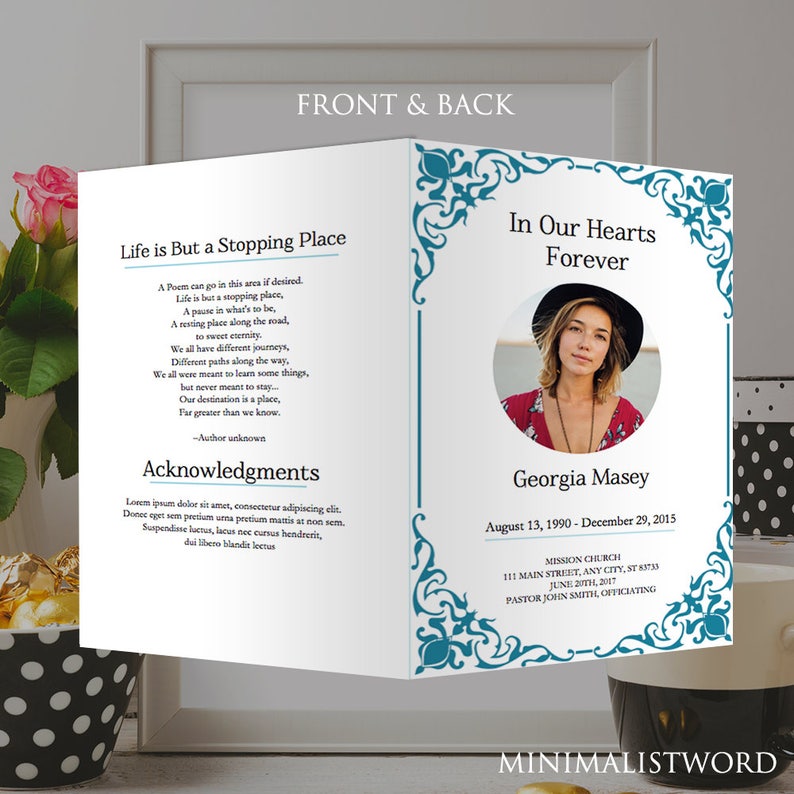
What Is The Best Font For A Funeral Program . When choosing a font for a funeral program, consider the following tips to ensure you make the right choice: The right font can convey the appropriate tone, honor the departed, and provide comfort to grieving loved ones. Choose a font that is easy to read, especially at. Popular fonts for funeral programs. Serif fonts like times new roman are commonly used for their traditional and formal. This comprehensive guide will help you navigate the nuanced. Whether you’re creating a funeral program or finalizing text for an obituary, this feature will have all the best fonts in the. When creating a funeral program, selecting the appropriate fonts plays a crucial role in conveying the desired tone and honoring the individual being commemorated. Several fonts are commonly used in funeral programs due to their readability and ability to convey a sense of reverence. The choice of fonts in a funeral program influences readability and sets the tone. A classic serif font that is elegant and easy to read, making it suitable for longer passages of text.
Serif fonts like times new roman are commonly used for their traditional and formal. Several fonts are commonly used in funeral programs due to their readability and ability to convey a sense of reverence. The choice of fonts in a funeral program influences readability and sets the tone. Popular fonts for funeral programs. The right font can convey the appropriate tone, honor the departed, and provide comfort to grieving loved ones. When creating a funeral program, selecting the appropriate fonts plays a crucial role in conveying the desired tone and honoring the individual being commemorated. Choose a font that is easy to read, especially at. Whether you’re creating a funeral program or finalizing text for an obituary, this feature will have all the best fonts in the. This comprehensive guide will help you navigate the nuanced. A classic serif font that is elegant and easy to read, making it suitable for longer passages of text.
What Is The Best Font For A Funeral Program When choosing a font for a funeral program, consider the following tips to ensure you make the right choice: The choice of fonts in a funeral program influences readability and sets the tone. Choose a font that is easy to read, especially at. Whether you’re creating a funeral program or finalizing text for an obituary, this feature will have all the best fonts in the. Popular fonts for funeral programs. This comprehensive guide will help you navigate the nuanced. When creating a funeral program, selecting the appropriate fonts plays a crucial role in conveying the desired tone and honoring the individual being commemorated. Several fonts are commonly used in funeral programs due to their readability and ability to convey a sense of reverence. A classic serif font that is elegant and easy to read, making it suitable for longer passages of text. Serif fonts like times new roman are commonly used for their traditional and formal. The right font can convey the appropriate tone, honor the departed, and provide comfort to grieving loved ones. When choosing a font for a funeral program, consider the following tips to ensure you make the right choice:
How To Write A Funeral Order Of Service What Is The Best Font For A Funeral Program The choice of fonts in a funeral program influences readability and sets the tone. Serif fonts like times new roman are commonly used for their traditional and formal. When choosing a font for a funeral program, consider the following tips to ensure you make the right choice: Whether you’re creating a funeral program or finalizing text for an obituary, this. What Is The Best Font For A Funeral Program.
Funeral Program Template Funeral Card, Memorial Program, Funeral What Is The Best Font For A Funeral Program Several fonts are commonly used in funeral programs due to their readability and ability to convey a sense of reverence. The choice of fonts in a funeral program influences readability and sets the tone. Popular fonts for funeral programs. This comprehensive guide will help you navigate the nuanced. When choosing a font for a funeral program, consider the following tips. What Is The Best Font For A Funeral Program.
How to Write a Funeral Order of Service instantprint in 2022 What Is The Best Font For A Funeral Program Choose a font that is easy to read, especially at. The choice of fonts in a funeral program influences readability and sets the tone. Several fonts are commonly used in funeral programs due to their readability and ability to convey a sense of reverence. A classic serif font that is elegant and easy to read, making it suitable for longer. What Is The Best Font For A Funeral Program.
Gold Funeral Program Template for Man, Masculine Memorial Program What Is The Best Font For A Funeral Program A classic serif font that is elegant and easy to read, making it suitable for longer passages of text. When creating a funeral program, selecting the appropriate fonts plays a crucial role in conveying the desired tone and honoring the individual being commemorated. Whether you’re creating a funeral program or finalizing text for an obituary, this feature will have all. What Is The Best Font For A Funeral Program.